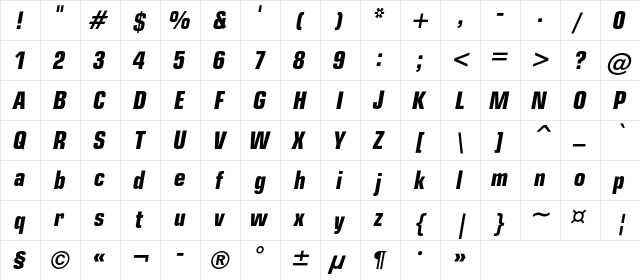
EuropeCond Bold Italic Font Preview
Design Context for EuropeCond Typeface
EuropeCond takes a measured approach to typography — its balanced proportions and neutral character make it a reliable workhorse for both digital and print work. The slanted form adds forward momentum and visual energy. Its bold stroke weight gives it real presence on the page. The condensed width makes it efficient for tight spaces without sacrificing legibility.
Pro Tip: Use EuropeCond for emphasis, pull quotes, and subheadings where its slanted energy can add rhythm to the layout.